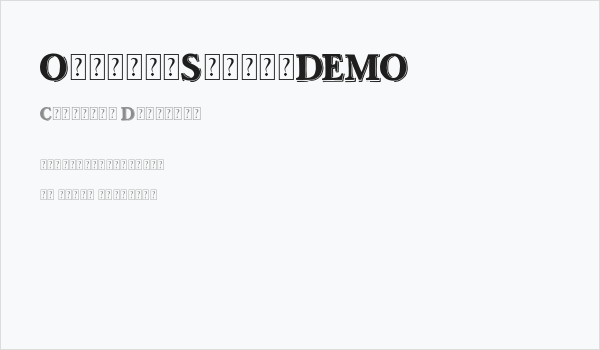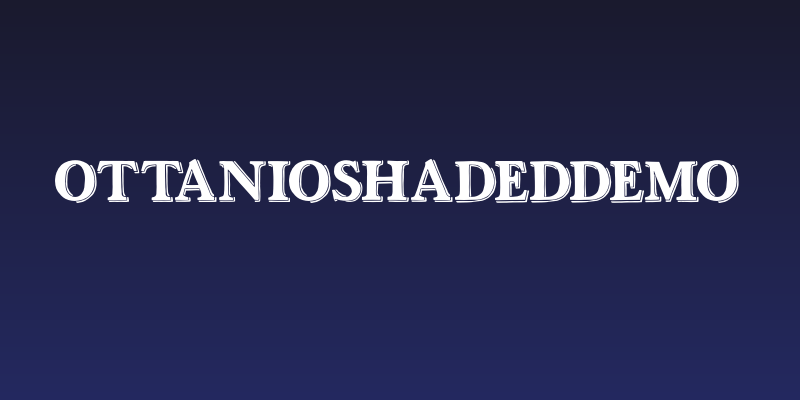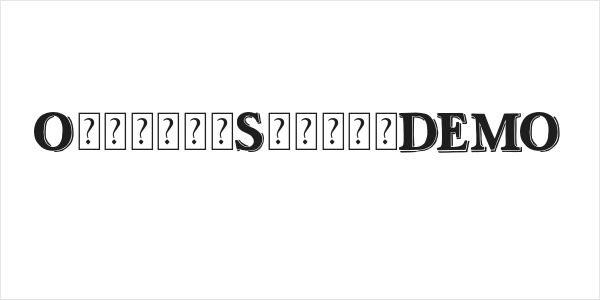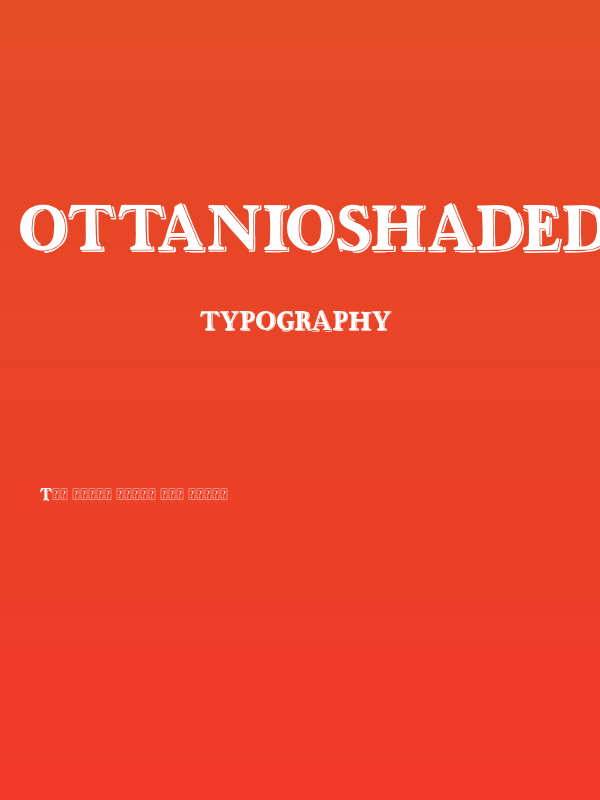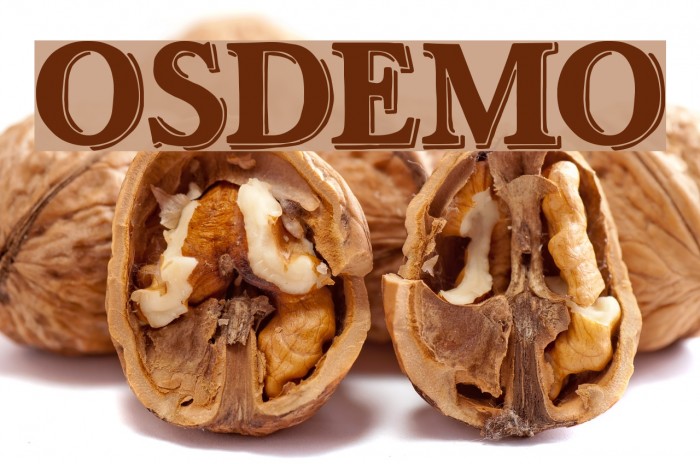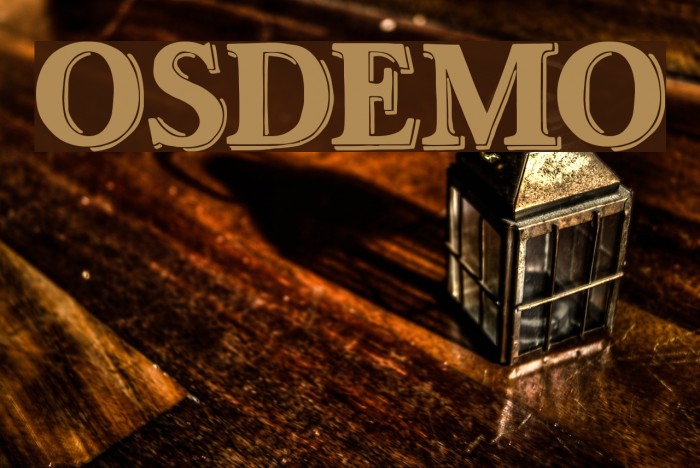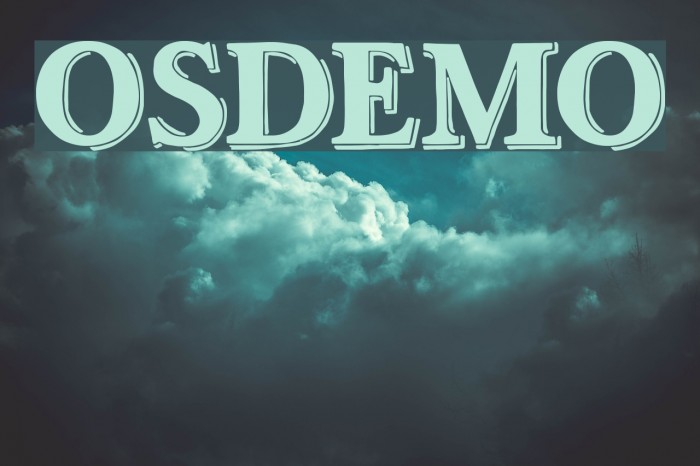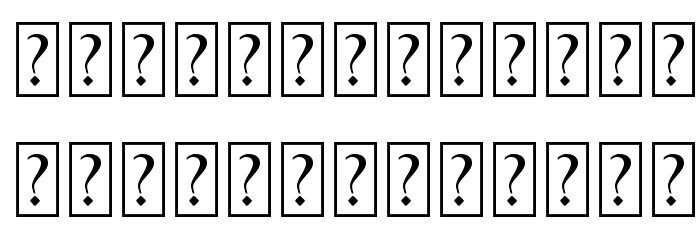
OttanioShadedDEMO Font
This font features a bold and dramatic style with a distinct shaded effect that adds depth and dimension to each character. The uppercase letters are prominently displayed, showcasing a classic serif design with sharp edges and strong lines. The shading gives a three-dimensional appearance, making it ideal for eye-catching headlines or titles. The font lacks lowercase letters and numbers, focusing solely on uppercase characters, which enhances its decorative appeal. The overall style is reminiscent of vintage signage or posters, offering a nostalgic yet sophisticated look.
| Overall Style | Vintage |
| Proposed Projects | Ideal for vintage-themed posters, signage, book covers, and branding projects that require a bold and classic touch. |